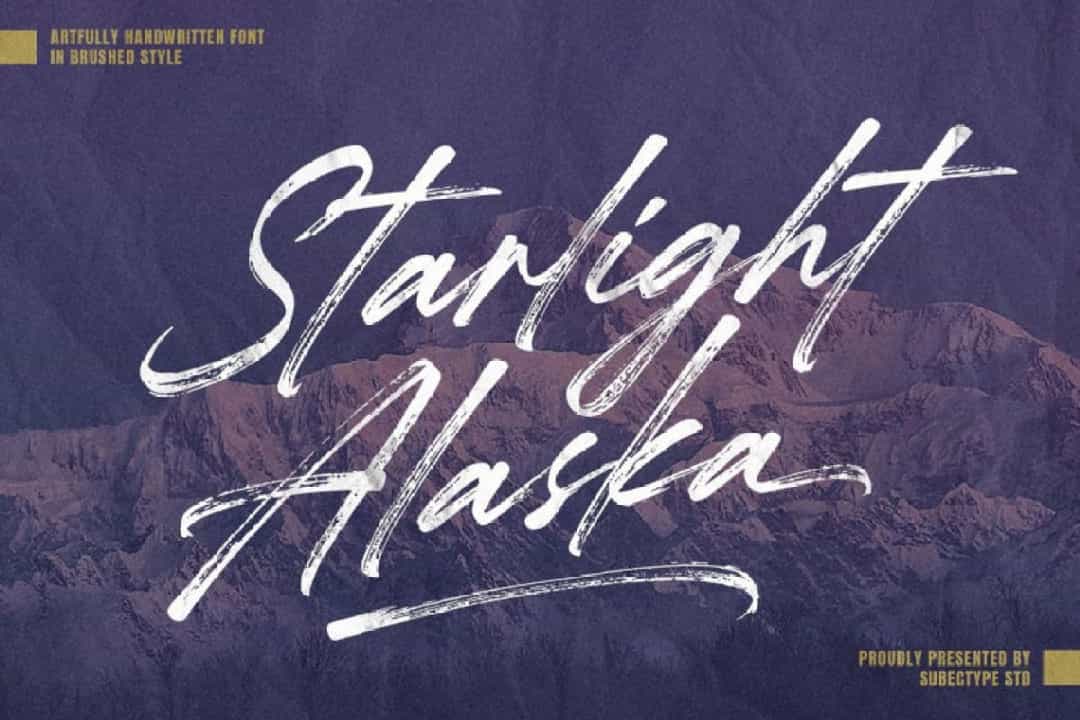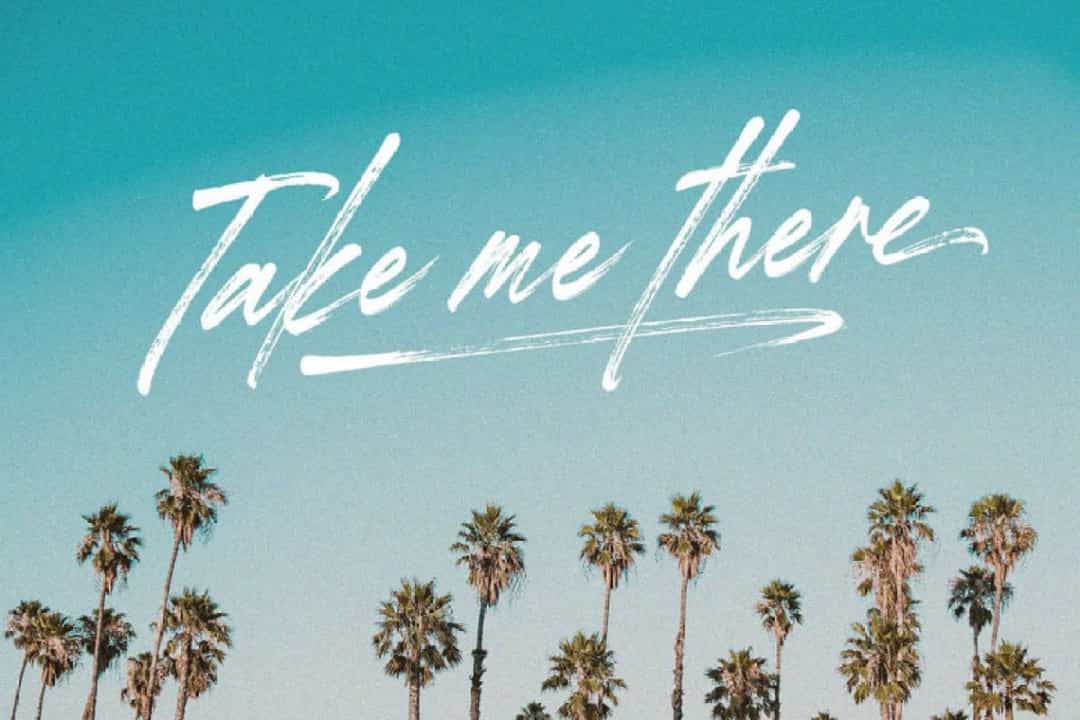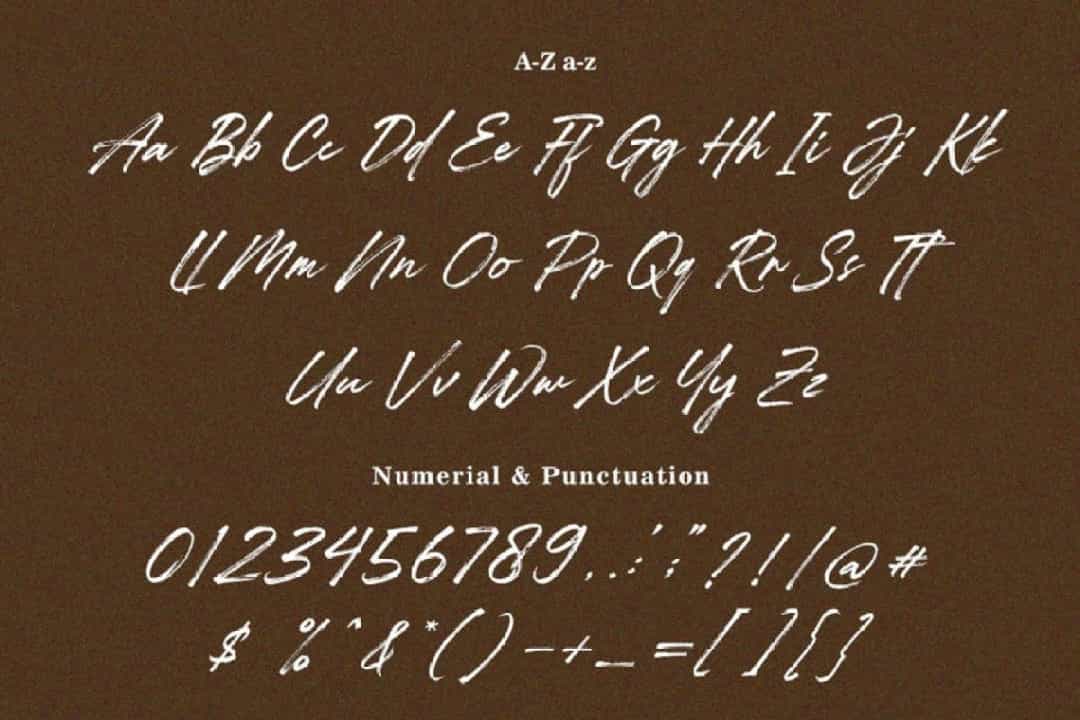
Starlight Alaska is written using handwriting brush script font. The informal and natural brush style conveys various emotions from casual relaxation to eccentric artisticism.